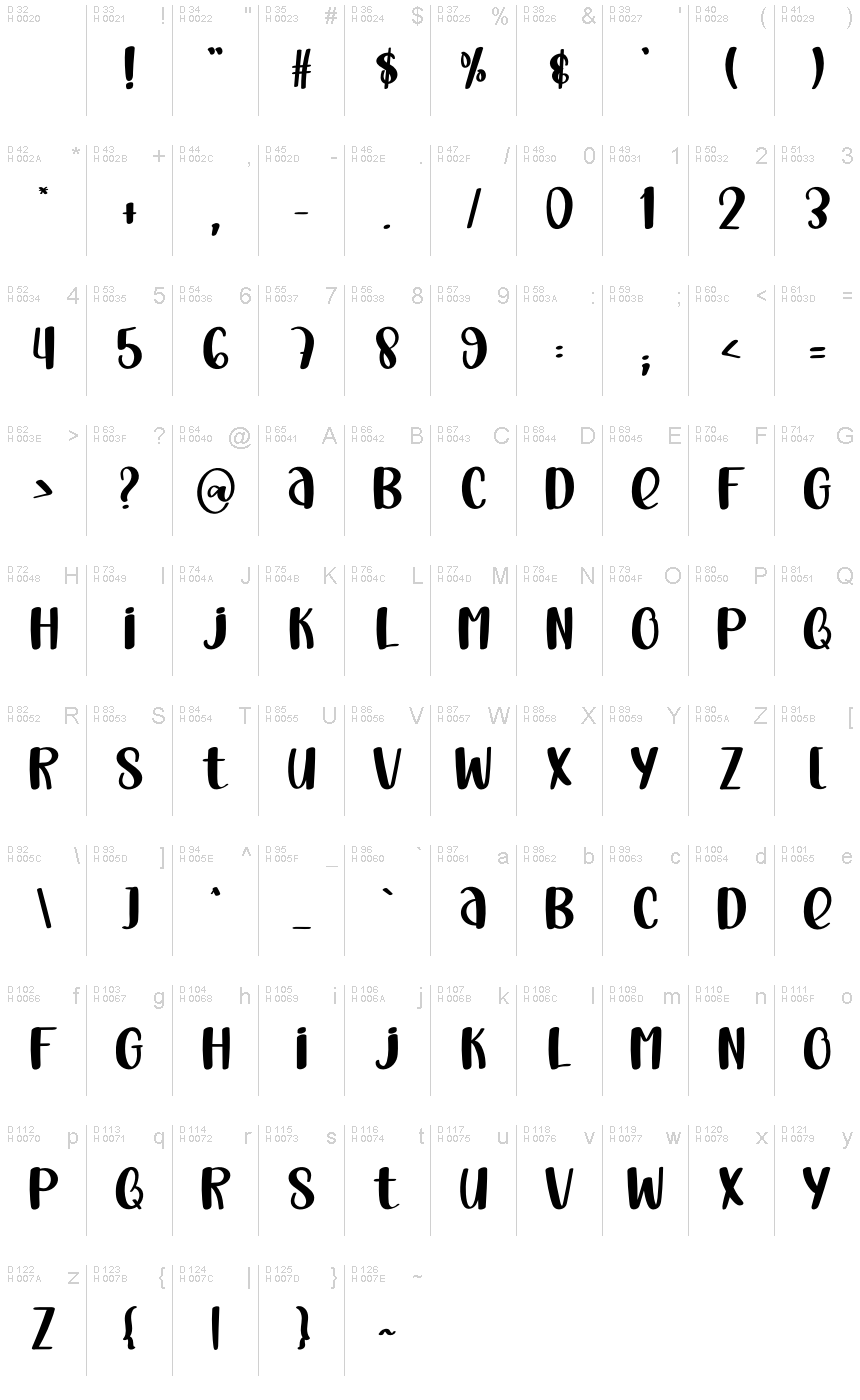
Vitamin Sea
Vitamin Sea is a vibrant display font designed by PiPi Creative, exuding an inviting cartoon style that brings a playful energy to any design. Its bold expression captures attention effortlessly, making it perfect for projects that aim to evoke joy and creativity. The letterforms feature exaggerated curves and whimsical shapes, radiating a sense of fun and relaxation reminiscent of carefree beach days.
This font thrives in visual contexts such as children’s books, playful branding, or lively event promotions. Whether used for eye-catching headlines or cheerful posters, Vitamin Sea adds a splash of personality and warmth that engages audiences while conveying a casual yet dynamic vibe. Embrace the spirit of the sea with this delightful typeface!